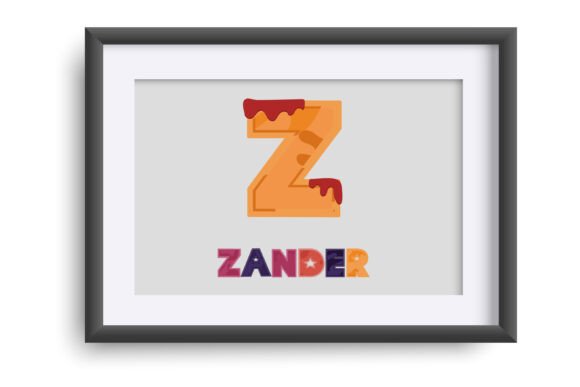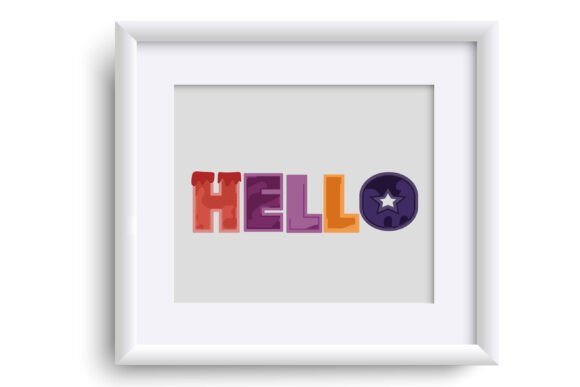
Camo Halloween Font
This full-color font features camouflaged lettering in a Halloween color palette with some oozing blood. There is an alt version you can access through your system’s character map that contains additional colors of all the letters. This font works best for titles, displays, posters and more. Please note color fonts will show as black in non compatible programs. This font type is compatible with Silhouette Studio.OpenType full-color (SVG) fonts are installed like any normal .otf font is installed. This usually happens via FontBook for Mac users or via your preferred font manager or Control Panel in Windows. Please note color fonts will show as black in non-compatible programs. They often show as black when choosing the font in the preview window in programs that support color fonts. You will know if your program can support color fonts when you type on the document and see them in color. Adobe products, Silhouette Studio, Quark, and Inkscape, amongst others, support full-color SVG fonts at this time.Full-color SVG fonts are the perfect way to add a touch of personality to your designs. With a full range of colors and styles to choose from, you can create anything from simple text logos to complex illustrations. Plus, SVG fonts are vector-based, so they can be scaled to any size without losing quality.